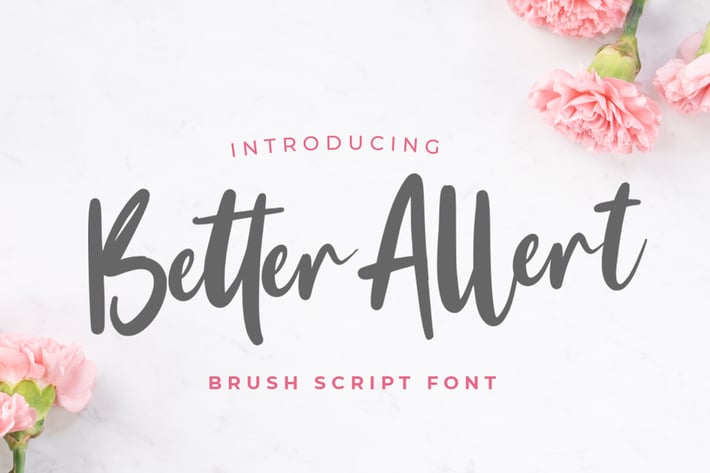
Better Allert - Wedding Script Font
Better Allert is a modern, delicate and adaptable paint brushed font. Fall in love with its authentic feel and use it to create lovely wedding invitations, beautiful stationary art, eye-catching social media posts, and cute greeting cards.
* Fonts include multilingual support for; ä ö ü Ä Ö Ü ß ¿ ¡